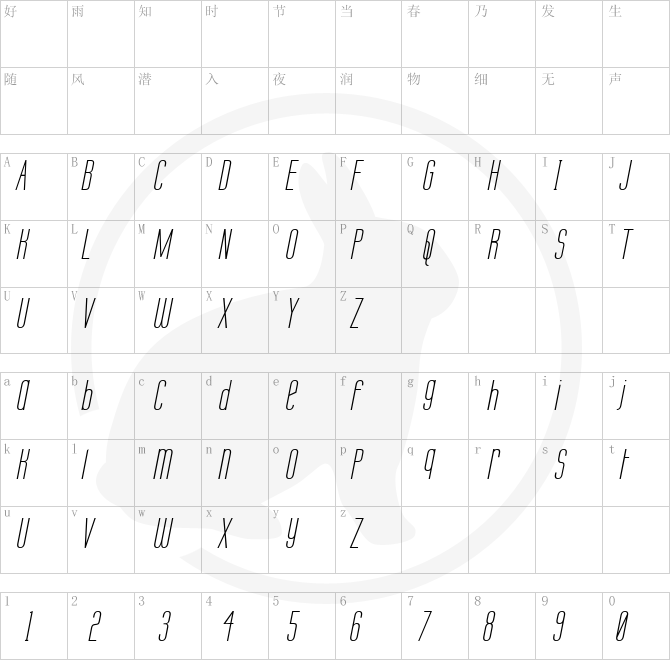
- Font Name:Labtop Unicase
Labtop-Unicase-Italic-copy-1.ttf is a very beautiful artistic font, Labtop-Unicase-Italic-copy-1.ttf is widely used in the design and printing of various books and pictures,Labtop-Unicase-Italic-copy-1.ttf has a strong visual impact,Labtop-Unicase-Italic-copy-1.ttf is a commonly used font in newspapers, magazines and books, and is used in posters, e-commerce Poster design, store design, logo design, font design and other fields.Labtop-Unicase-Italic-copy-1.